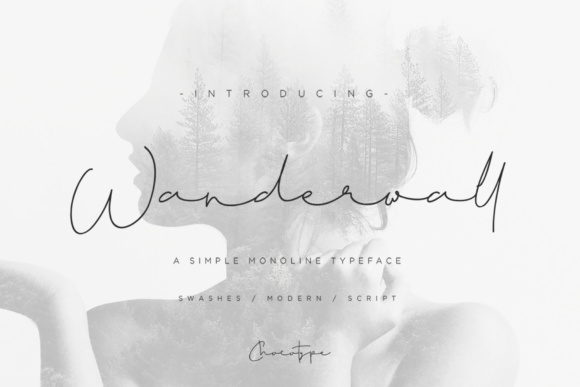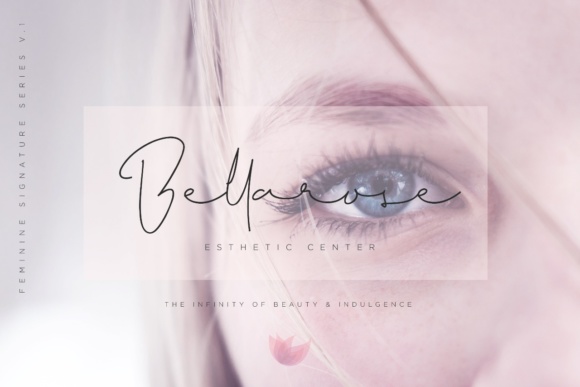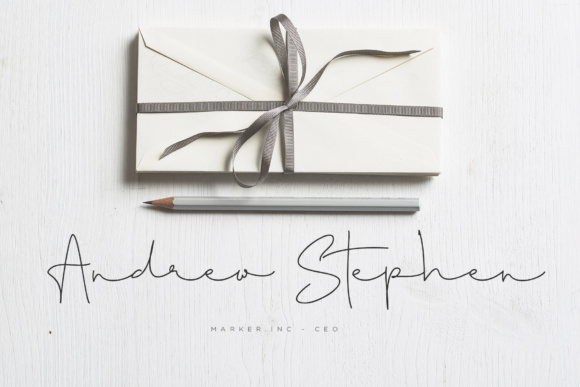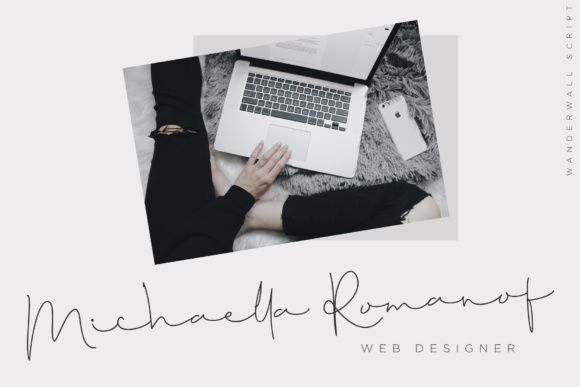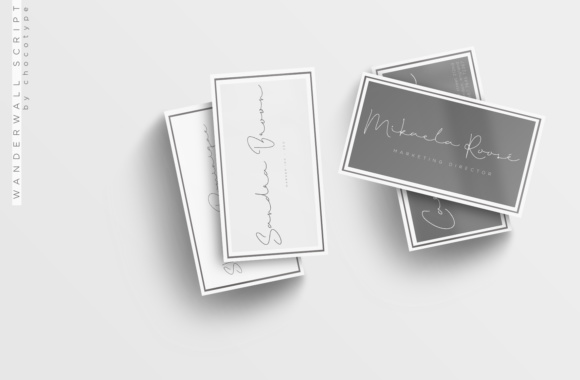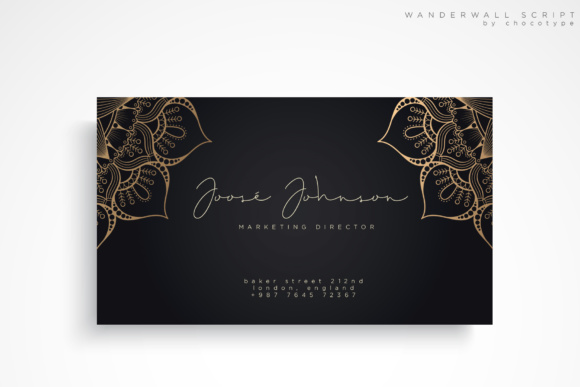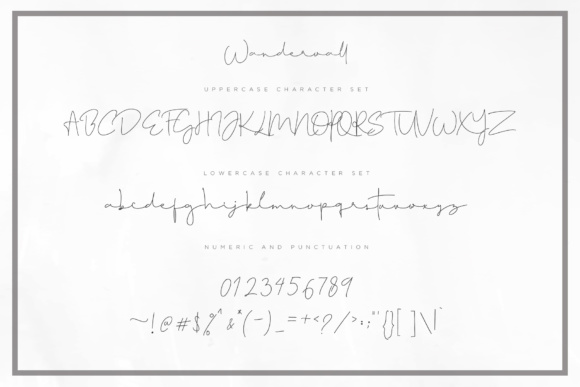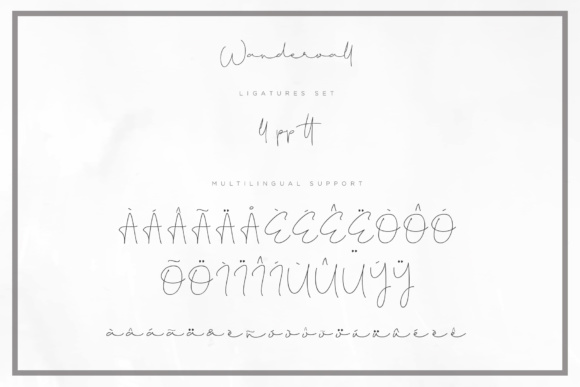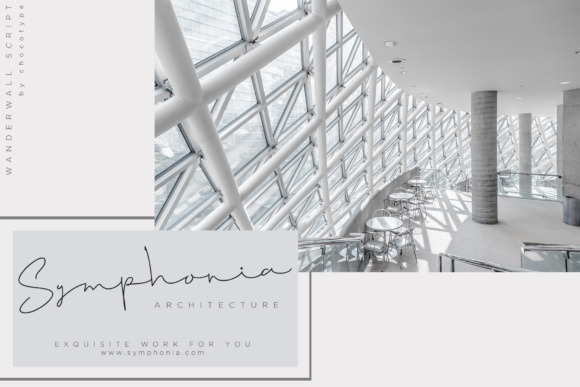
Wanderwall Font
About Wanderwall Font
Wanderwall is a cool and modern monoline signature font, perfect for use in editorially oriented designs, business cards, novels, blogs, advertisement, name cards, etc. Wanderwall works best as a header or as the focal point of your creative work! Wanderwall Includes ligatures to make it more like a handwritten font!